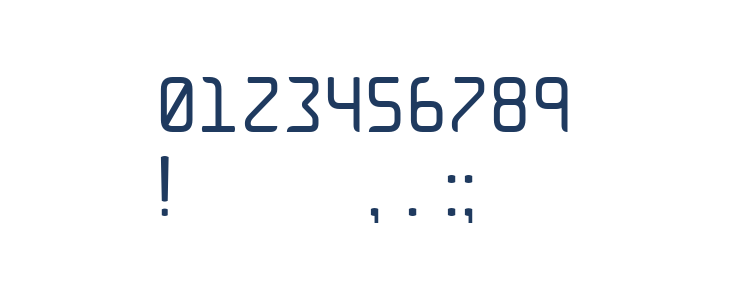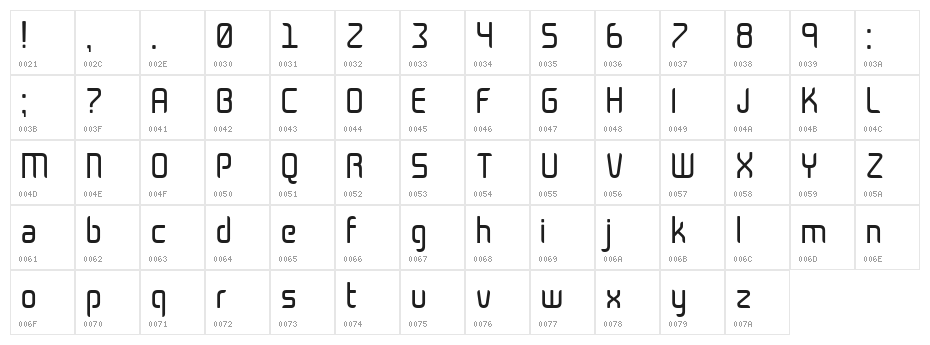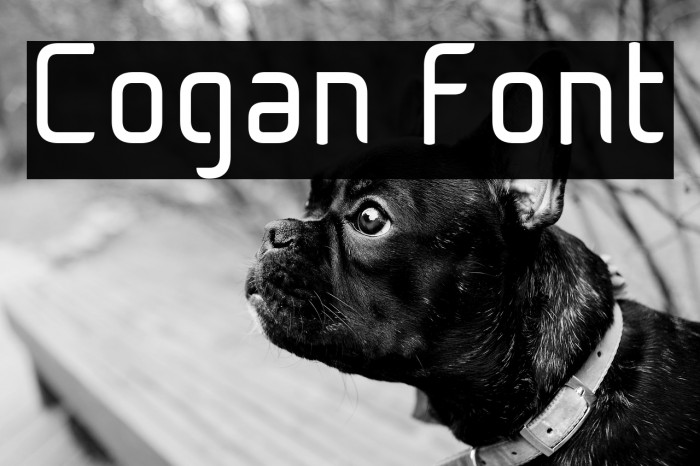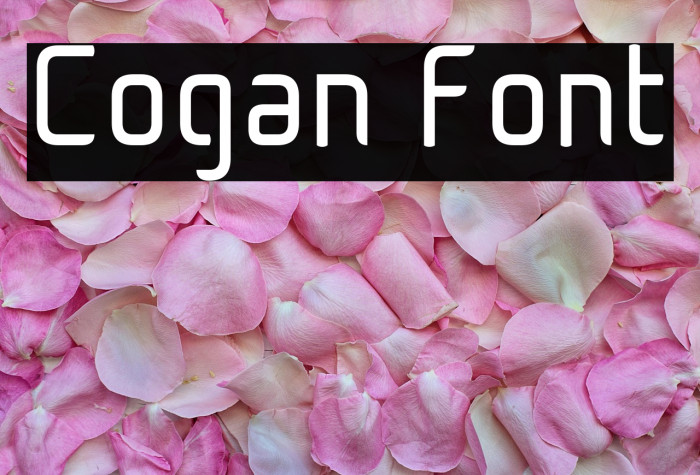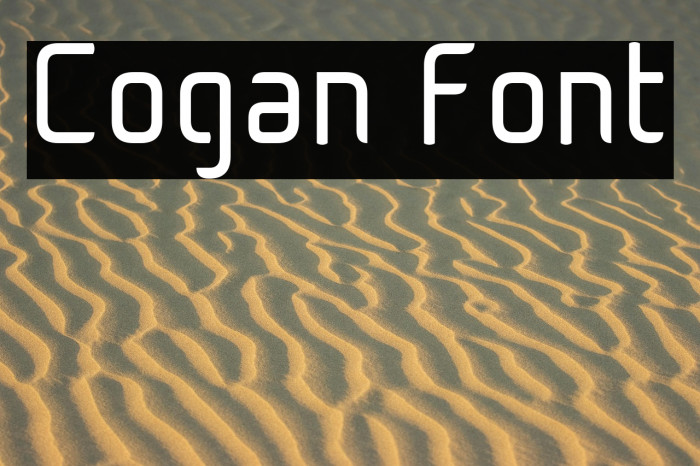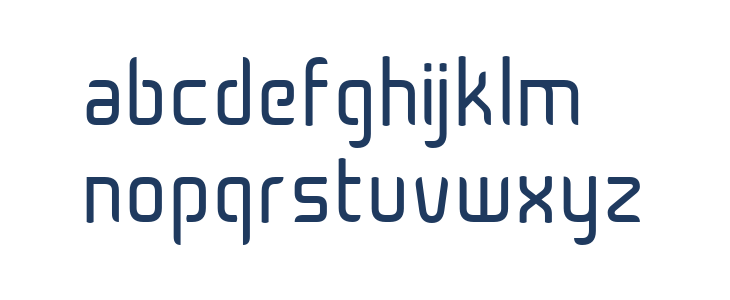
Cogan Font
Cogan Description
This font features a modern, geometric design with rounded edges and a clean, streamlined appearance. The characters are uniform in width, giving it a monospaced feel, yet they maintain a subtle elegance through their slightly curved lines and open counters. The uppercase letters are bold and assertive, while the lowercase letters offer a softer, more approachable look. The numerals are clear and legible, making them suitable for both digital and print applications. Special characters are distinct and maintain the font's overall aesthetic, ensuring consistency across different uses.
Use CaseHeadlines, Logos, Digital Interfaces
Proposed ProjectsIdeal for tech branding, digital interfaces, modern advertising, and minimalist design projects.